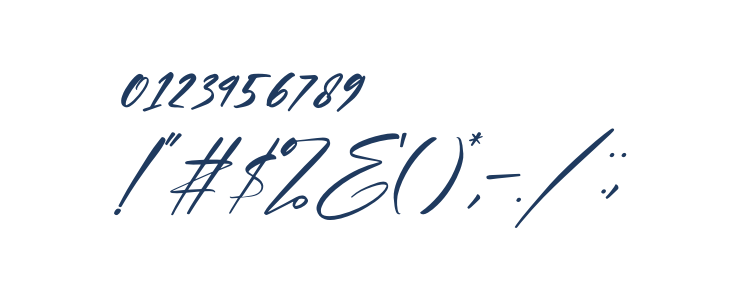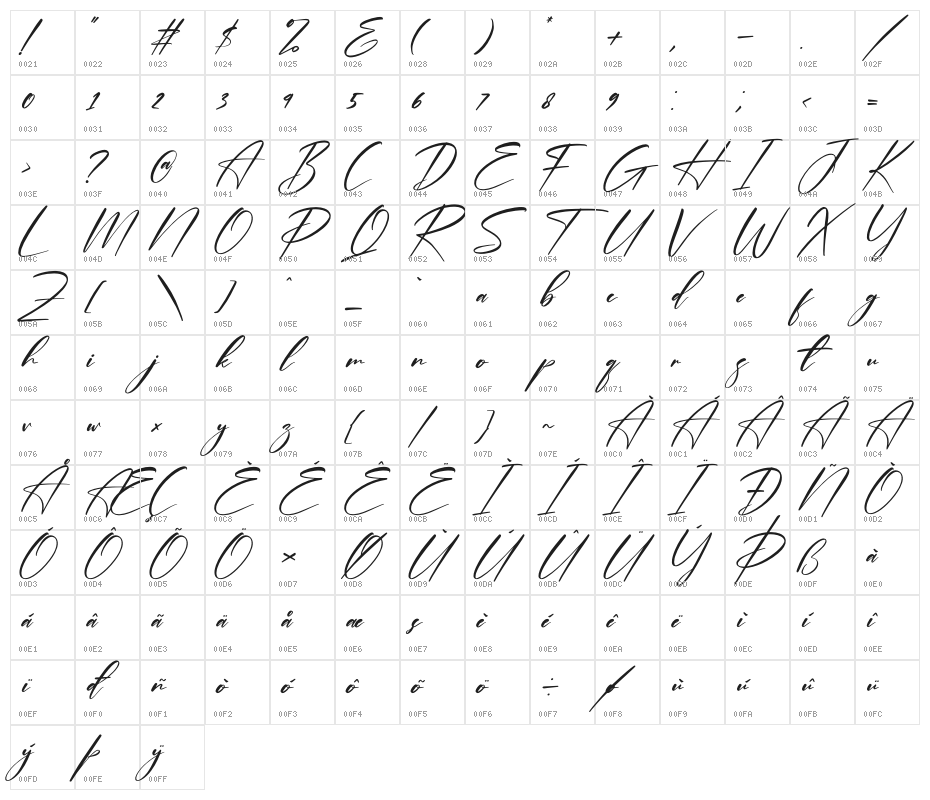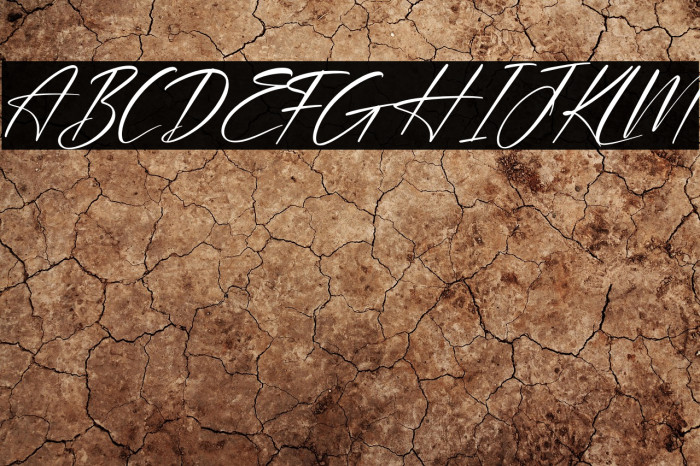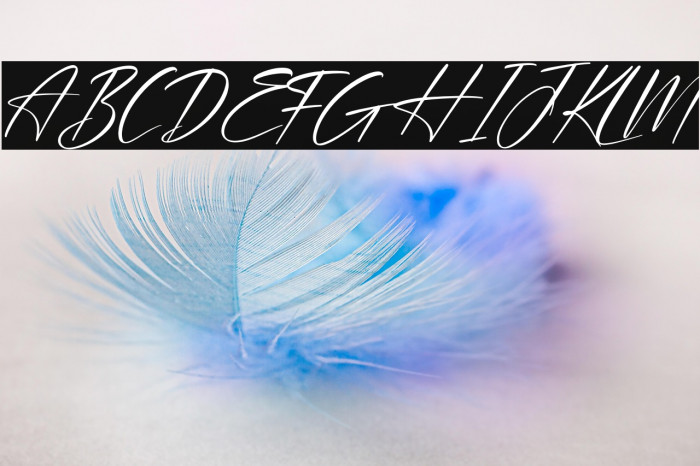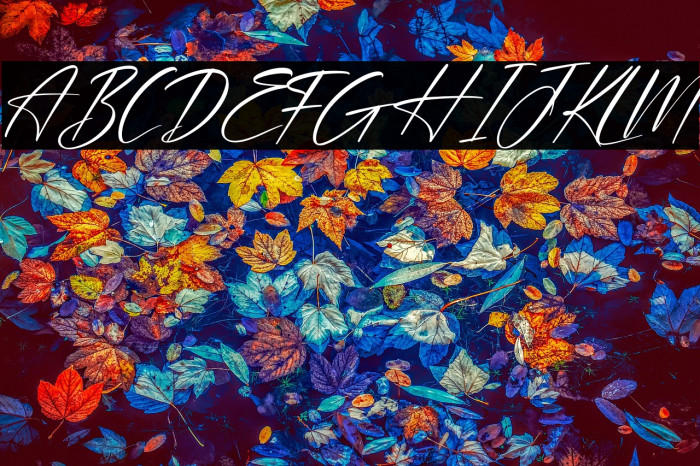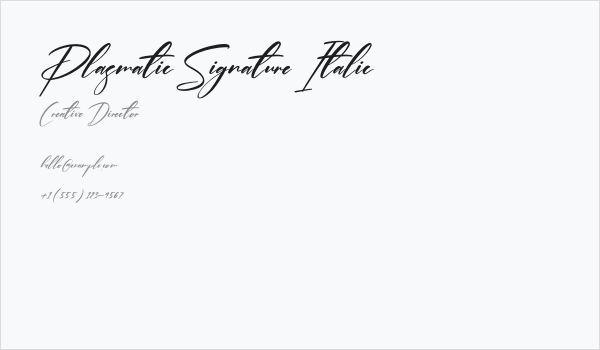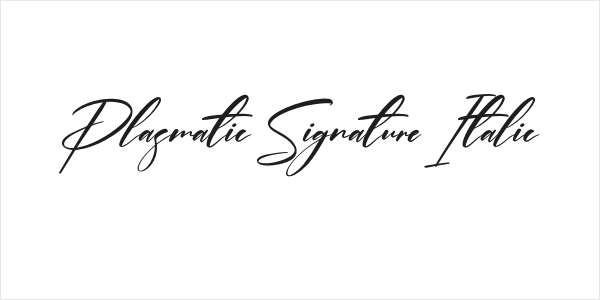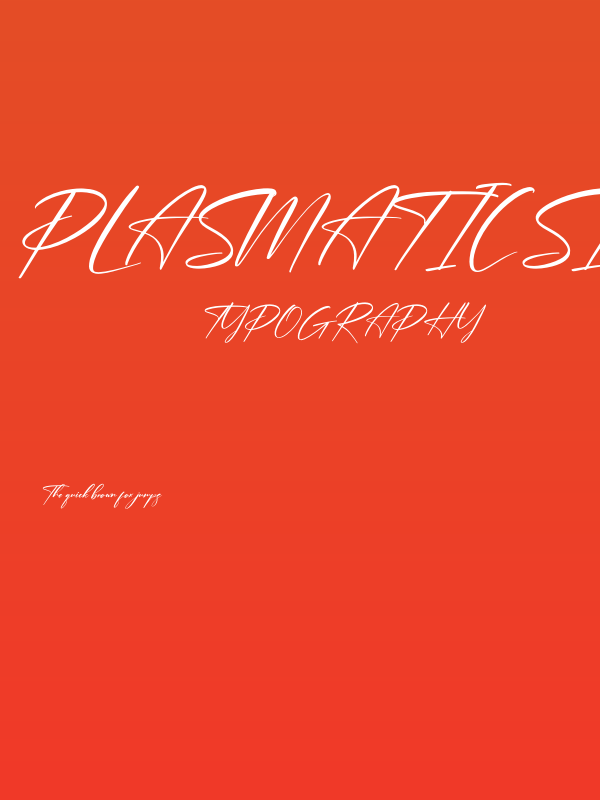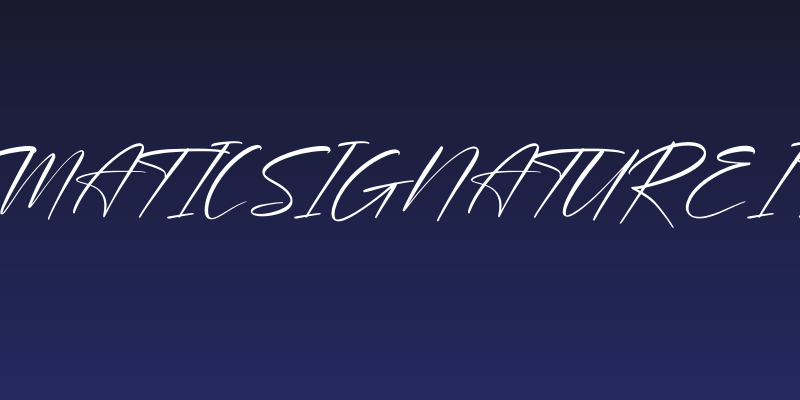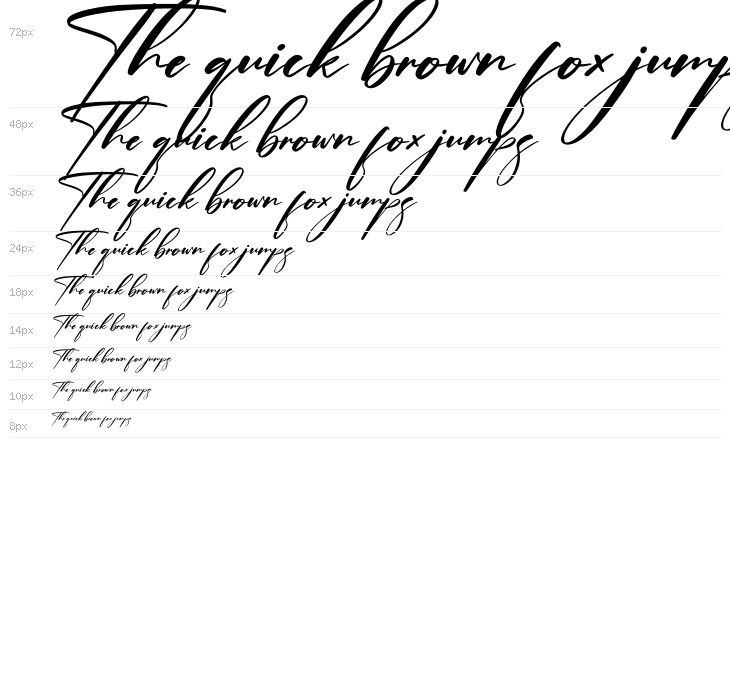
Plasmatic Signature Italic Font
Plasmatic Signature Italic Description
This font exudes a dynamic and fluid style, characterized by its elegant, flowing script that mimics the natural motion of handwriting. The uppercase letters are elongated and slightly slanted, giving a sense of movement and grace. The lowercase letters are more compact, yet maintain the same fluidity and elegance. The numerals are bold and distinct, ensuring readability while maintaining the overall aesthetic. Special characters are creatively integrated, adding a touch of sophistication. The font's overall appearance is both stylish and modern, making it suitable for a variety of creative applications.
| Proposed Projects | Ideal for wedding invitations, personal branding, elegant logos, and artistic posters. |